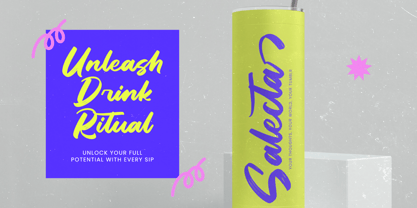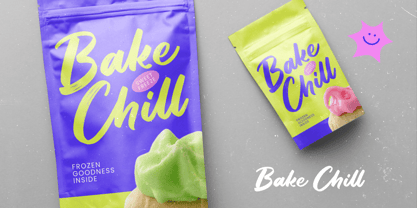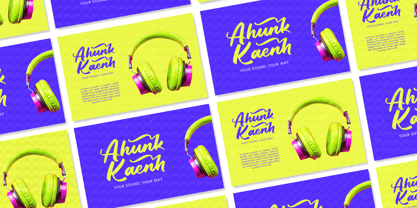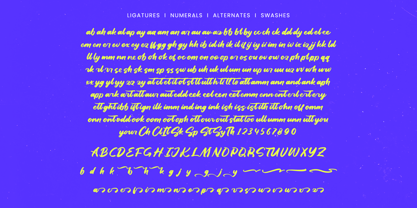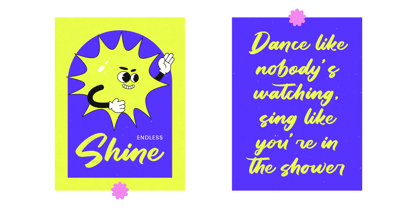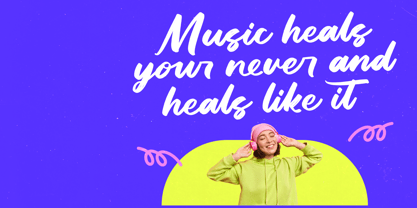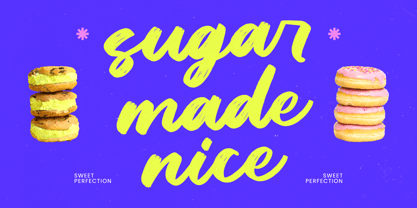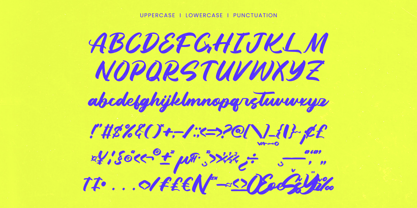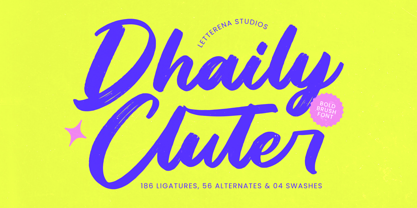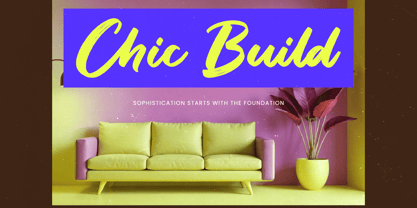
Dhaily Cluter
by Letterena Studios
The Dhaily Cluter Font Family was designed by Heru Utama Putra and published by Letterena Studios. Dhaily Cluter contains 2 styles and family package options. More about this family
Dhaily Cluter is a bold brush script font with high-impact strokes and an energetic, hand-painted feel. The texture in every curve gives it a natural, expressive personality perfect for branding that needs a loud, confident presence. This font shines in poster headlines, merch, social media graphics, streetwear branding, and anything that thrives on attitude and movement. With 186 ligatures, 56 alternates, and 4 swashes, it gives designers deep flexibility to build lettering that feels authentic, dynamic, and unmistakably handcrafted. The modern brush aesthetic makes Dhaily Cluter ideal for projects that want to look bold, creative, and full of momentum.